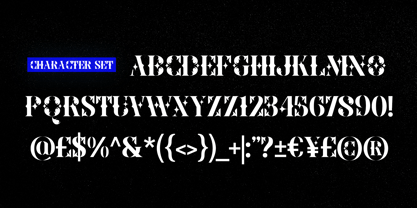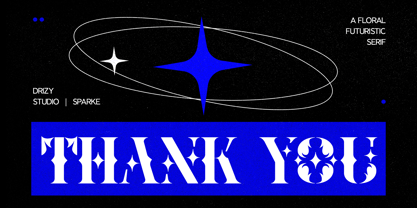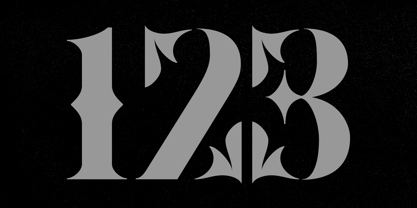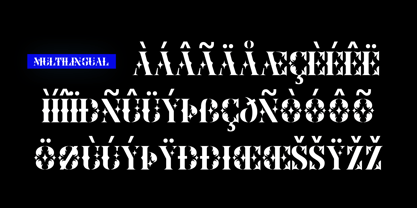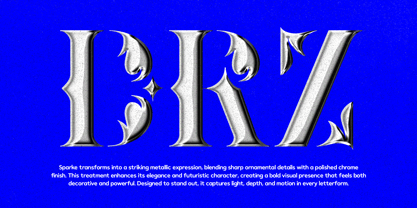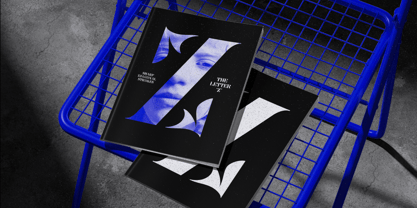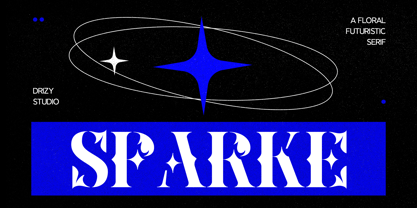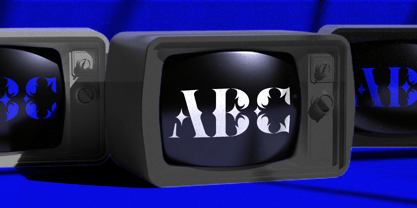
Sparke
La familia tipográfica Sparke fue diseñada por Panca Ahmadi Hasan y publicada por Drizy Font. Sparke contiene 1 estilos. Más información sobre esta familia
Sparke – Floral Futuristic Serif
Sparke-A is a unique Floral Futuristic Serif Font that blends elegant botanical-inspired details with a sleek, modern futuristic aesthetic. Designed to stand out, this typeface features refined serif structures enhanced by subtle floral elements, creating a perfect balance between nature and innovation.
Its distinctive character makes it ideal for branding, logos, packaging, editorial designs, fashion projects, wedding stationery, social media graphics, and creative display purposes. Whether you’re creating a sophisticated luxury brand or an imaginative futuristic concept, Sparke-A delivers a memorable and stylish visual impact.
Features:
• Floral Futuristic Serif Style
• Elegant & Modern Letterforms
• Numbers & Punctuation
• Multilingual Support
• Perfect for Branding, Packaging, Headlines, and Display Designs
Bring a fresh fusion of organic beauty and futuristic sophistication to your projects with Sparke-A, the perfect Floral Futuristic Serif Font for designers seeking something truly distinctive.
Sparke – Floral Futuristic Serif features:
• Character Set
• Punctuation & Numbers
• Multilingual